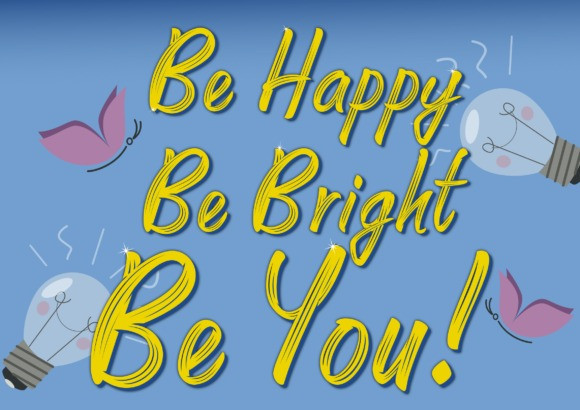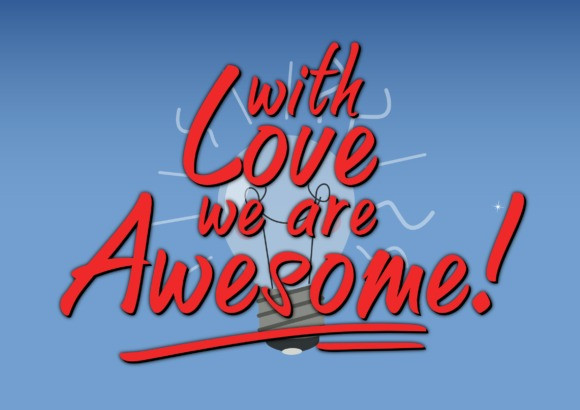
Lallono Script Font
Lallono is a stylish and graceful script font. It looks ravishing on wedding invitations, thank you cards, quotes, greeting cards, logos, business cards and every other design which needs a personalized touch. This font is PUA encoded which means you can access all of the glyphs and swashes with ease!